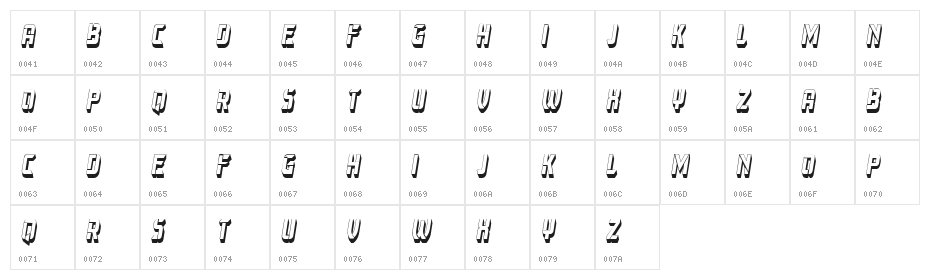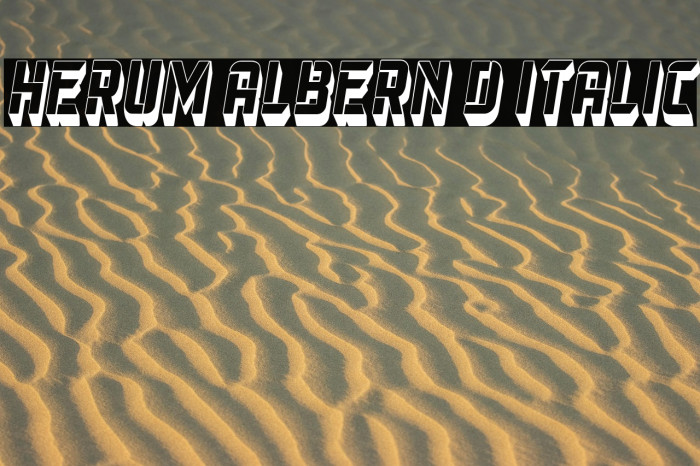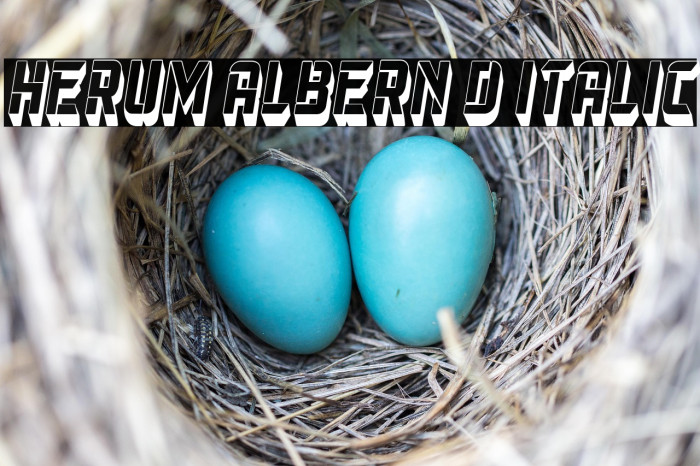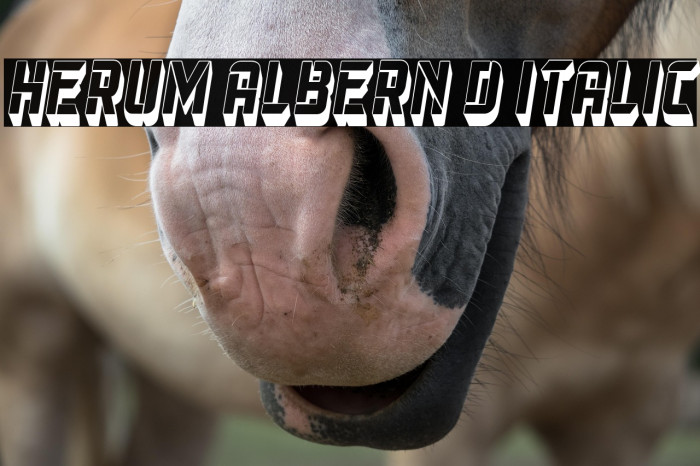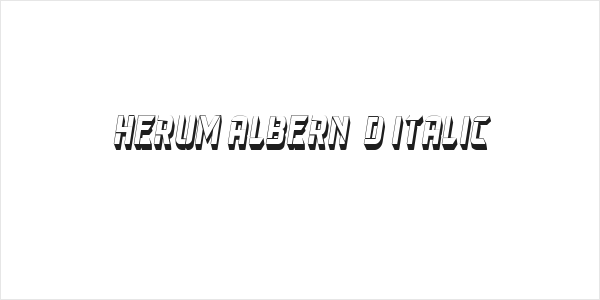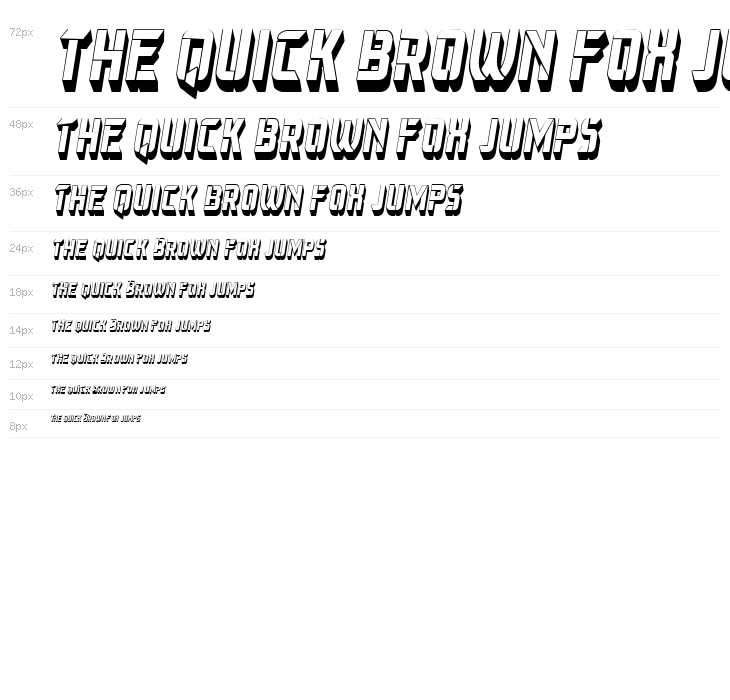
Herum Albern 3D Italic Font
Herum Albern 3D Italic Description
This font features a bold, three-dimensional design with a distinct italic slant, creating a dynamic and eye-catching appearance. The letters are characterized by their thick, blocky forms and shadowed edges, giving a sense of depth and movement. The uppercase and lowercase letters maintain a consistent style, with sharp angles and clean lines that enhance readability while adding a playful, modern twist. The numbers and special characters are designed to match the overall aesthetic, ensuring a cohesive look across all text elements. This font is ideal for projects that require a strong visual impact and a contemporary feel.
| Proposed Projects | Ideal for headlines, posters, logos, and any design needing a bold, modern touch. |